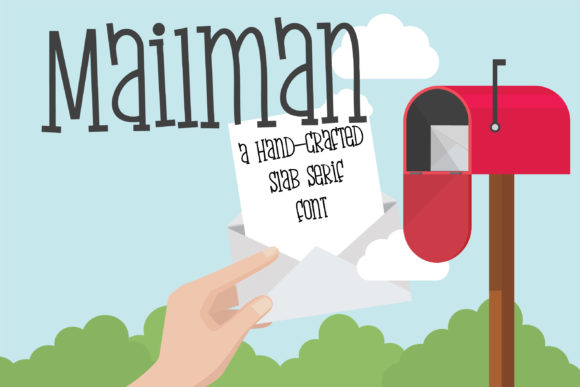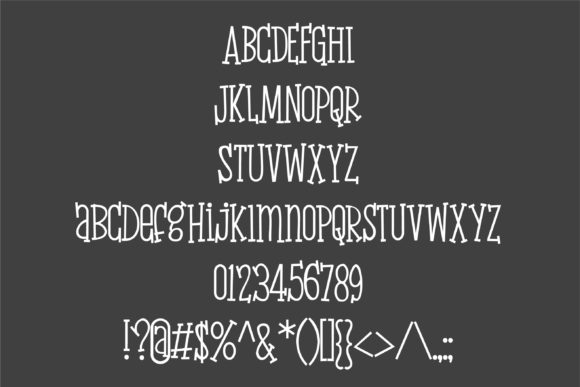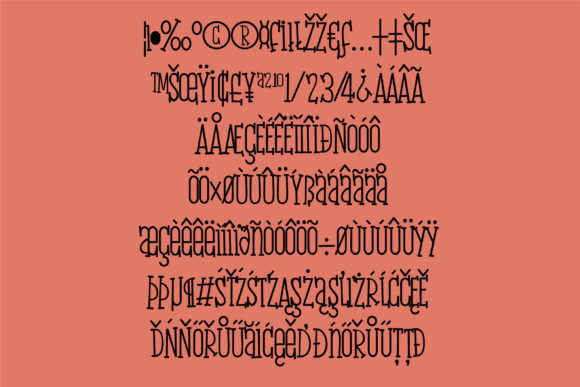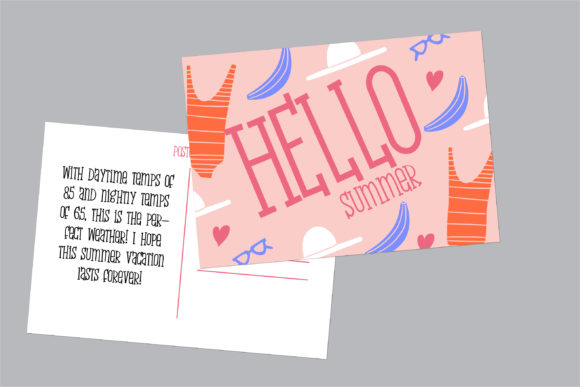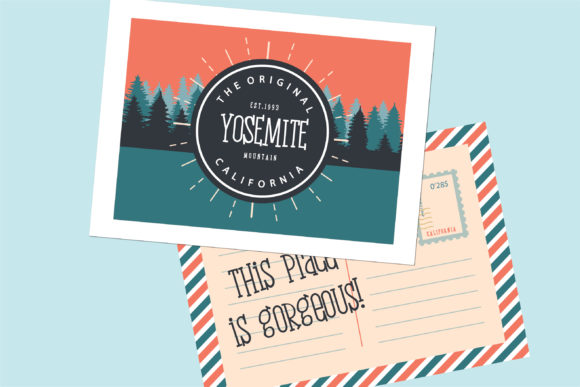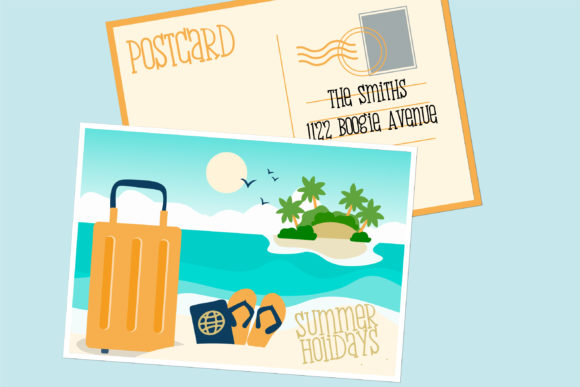
ZP Mailman Font
About ZP Mailman Font
Mailman is a hand-crafted font. Its casual charm makes it appear wonderfully down-to-earth, readable and, ultimately, incredibly versatile. Mailman will look outstanding in any context, whether it’s being used on busy backgrounds or as a standalone headline!